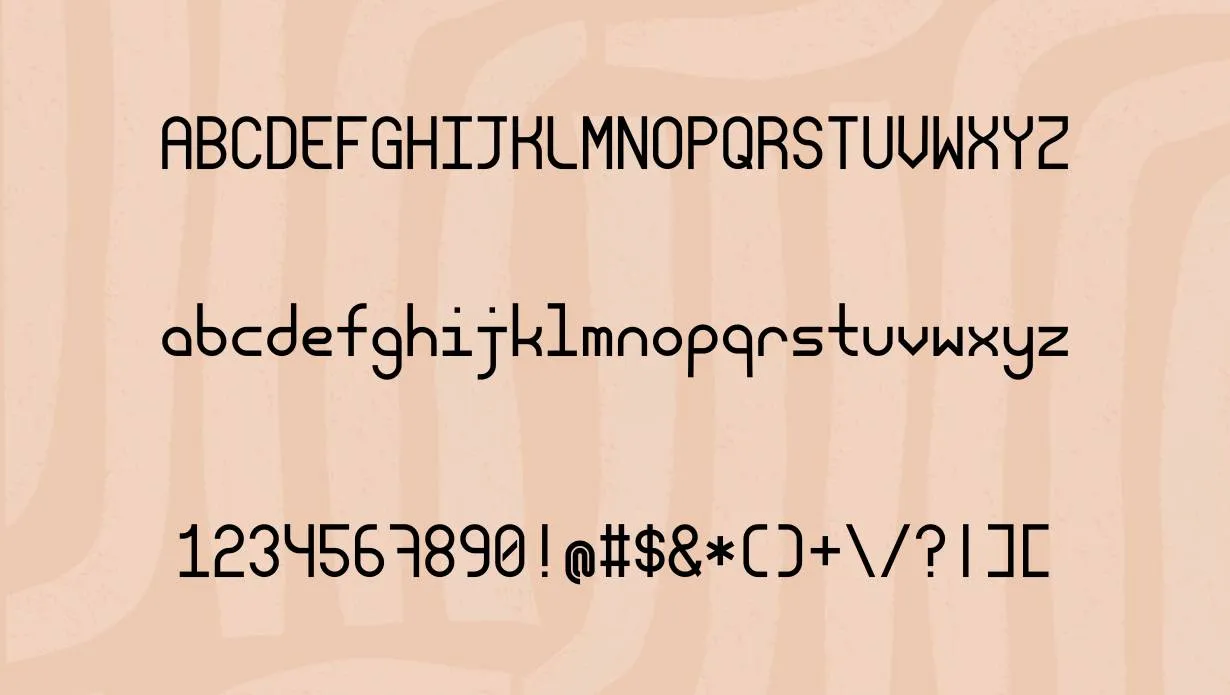
Modum Font is a sleek and modern typeface that offers a clean and sophisticated design. Its simple yet refined appearance makes it suitable for corporate branding, minimalist logos, and professional documents.
| Name | Modum Font |
| Designer | Jonathan Hill |